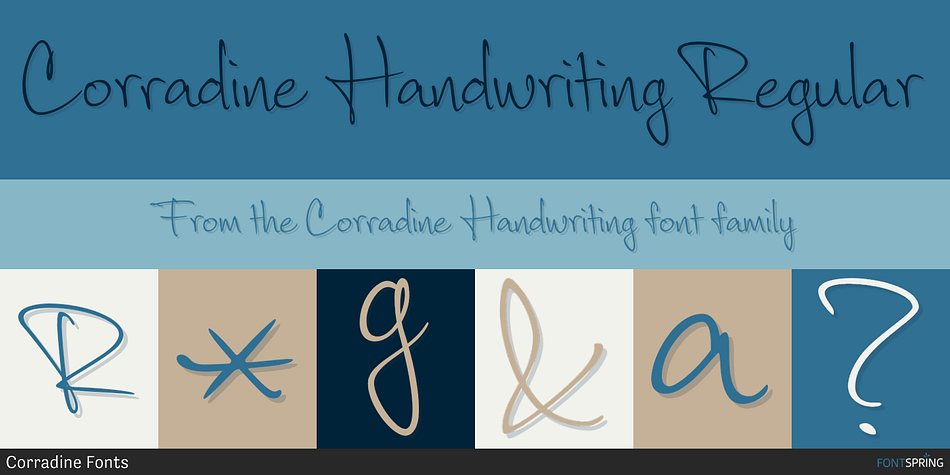
Corradine Handwriting Regular
Corradine Handwriting is a script font family. This typeface has two styles and was published by Corradine Fonts.
Based in the handwriting of Manuel Corradine.
Based in the handwriting of Manuel Corradine. Its numerous ligatures gives to it a incredible real handwriting aspect.